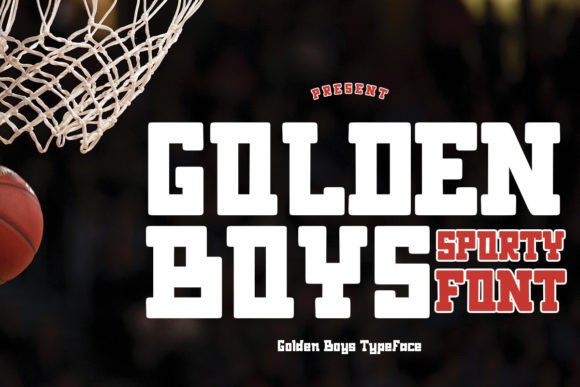
Introducing the Golden Boys Font, the ultimate font for captivating beach-themed designs. Designed by the renowned jehansyah251, Golden Boys is a display font that exudes strength and commands attention. Inspired by the boundless energy of the beach, this font embodies the spirit of summer, freedom, and adventure.
Golden Boys' bold and striking letterforms are a perfect match for headlines, logos, and branding projects. Its clean lines and geometric shapes radiate confidence and power, ensuring your message shines brightly wherever it's seen. Whether you're creating posters, flyers, social media graphics, or website designs, Golden Boys will add an instant touch of sophistication and visual impact.
With Golden Boys, you'll create designs that evoke the carefree spirit of a seaside escape. Transport your audience to sun-kissed shores, salty breezes, and crashing waves. The font's striking characters will leave a lasting impression, capturing the essence of a perfect beach day.
Unlock the potential of Golden Boys today and let your creativity run wild. Let your designs radiate the warmth of golden sands and the energy of crashing waves. With its bold personality and captivating style, Golden Boys is the perfect font to make your designs shine.